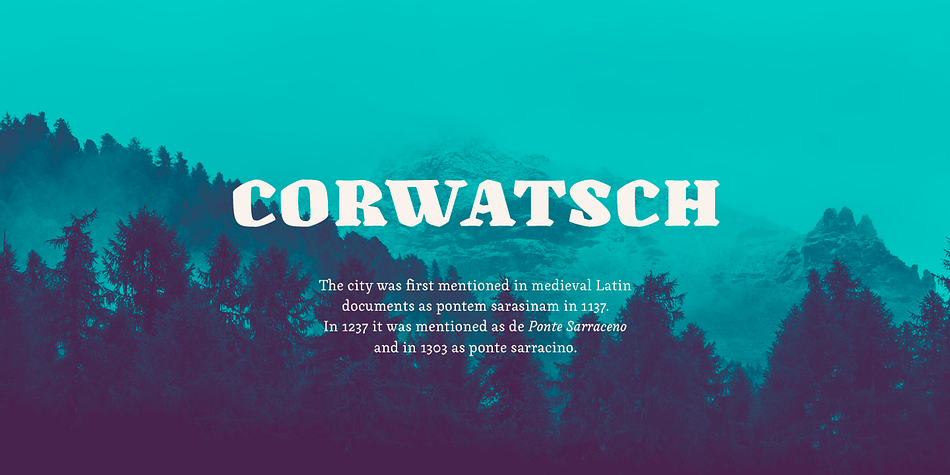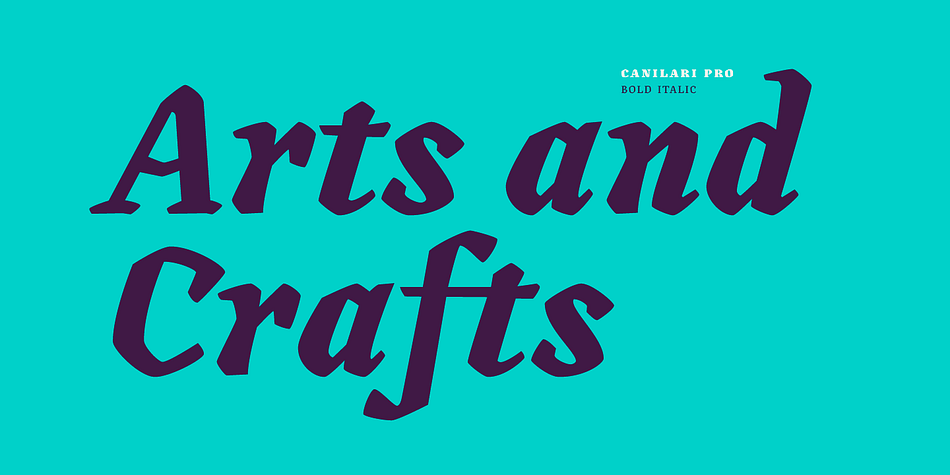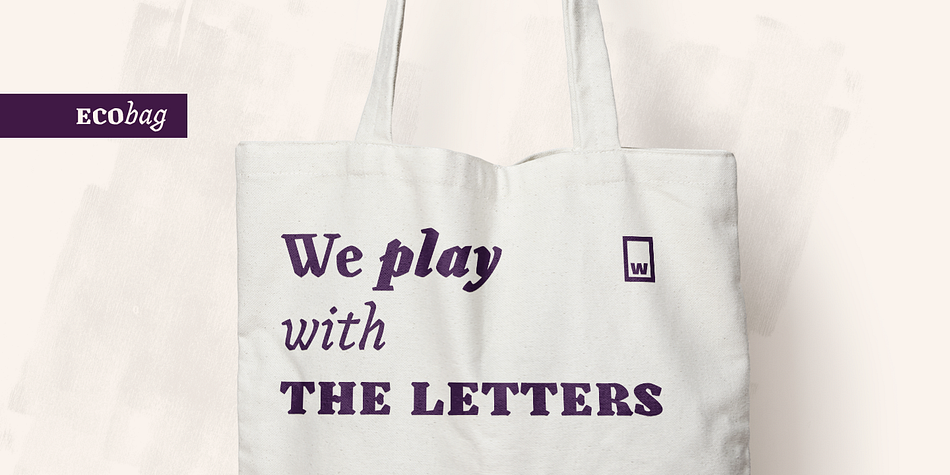
Canilari
Designed by Patricio Truenos, Canilari is a monograms, serif and dingbat font family. This typeface has seventeen styles and was published by W Type Foundry.
Canilari is a post-modern type family inspired by Diaguita pottery and contemporary serif typefaces. The Diaguita culture—developed from 10th century A.D. until 16th century A.D.—settled in the area of the present-day north Chile and northwest Argentina. Surviving cultural expressions of the Diaguita people are reduced to just a few pieces of beautifully decorated pottery of high technical quality.
Canilari itself is a scream of identity with an incomparable tone that borrows elements from native America and proudly show them to the world. The intense and consistent personality of Canilari makes it a functional font for a wide range of uses: from continuous text in the most challenging environments to pithy, high-impact headlines. Canilari is well-suited for publishing: newspapers, magazines, books, etc. Its flashy look and angular shapes also make it an excellent choice for posters, logotypes, and advertising. The family consists of 2 sets: one standard and one pro, each in 4 weights plus italics. Canilari also includes a set of ornaments and illuminated caps. Together, the Std set (369 characters) and Pro (710 characters) support 219 different languages. This typeface was selected at the Bienal Tipos Latinos 2014.